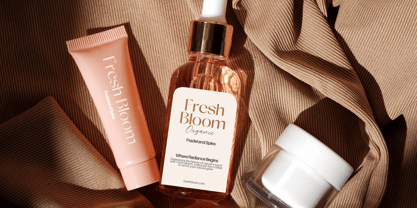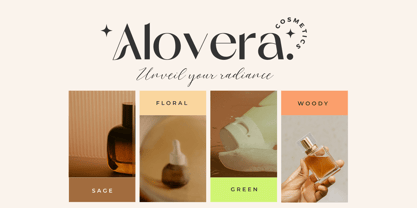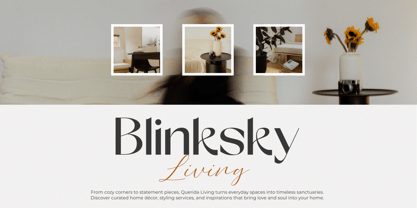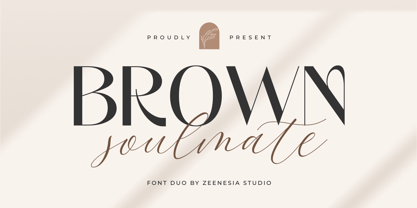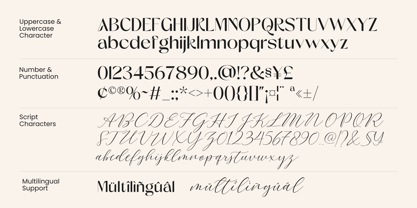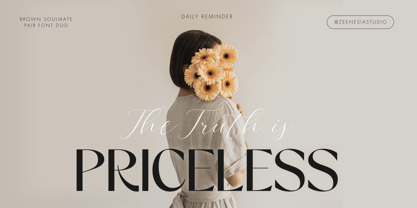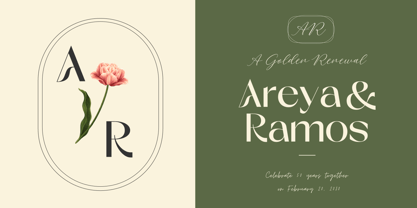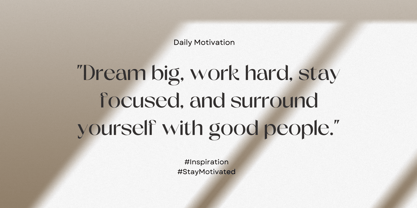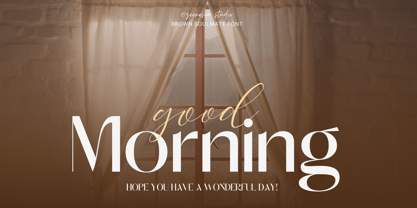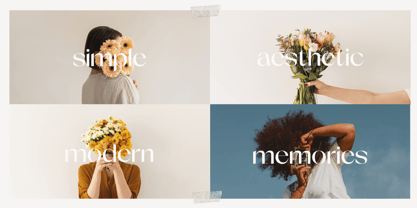
Brown Soulmate
by Zeenesia Studio
The Brown Soulmate Font Family was designed by Doni Purwoko and published by Zeenesia Studio. Brown Soulmate contains 2 styles and family package options.
Brown Soulmate – A Charming Font Duo
Introducing Brown Soulmate, a delightful font duo that brings together the clean elegance of sans serif and the graceful charm of script lettering. This versatile pair is designed to complement each other perfectly—balancing modern simplicity with handwritten warmth.
Whether you're crafting a brand identity, social media graphics, wedding invitations, or product packaging, Brown Soulmate offers a seamless blend of style and personality. The sans serif font delivers a bold and timeless presence, while the script font adds a touch of romance and creativity.
With its harmonious combination, Brown Soulmate is more than just a typeface—it's your perfect design partner for creating heartfelt, stylish, and standout projects.